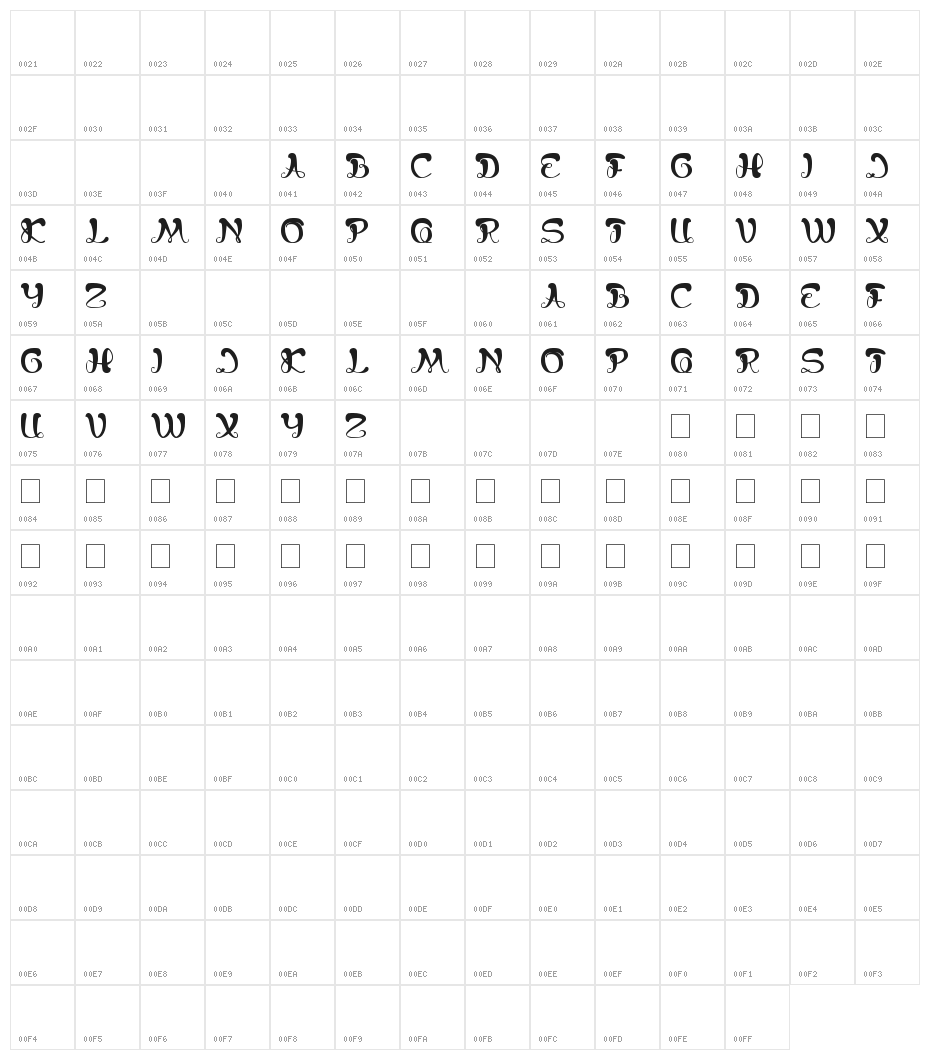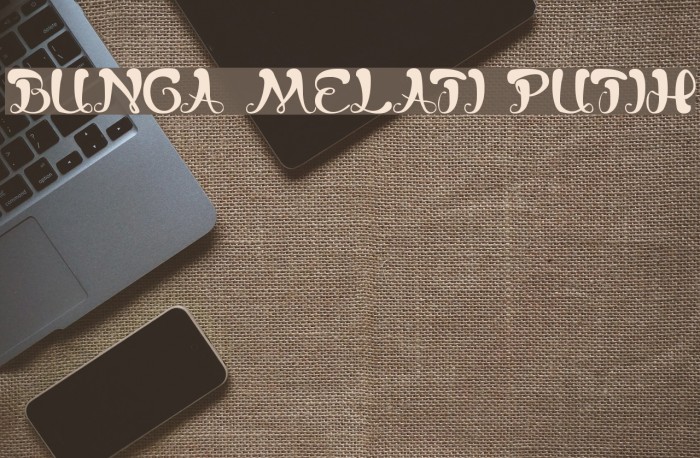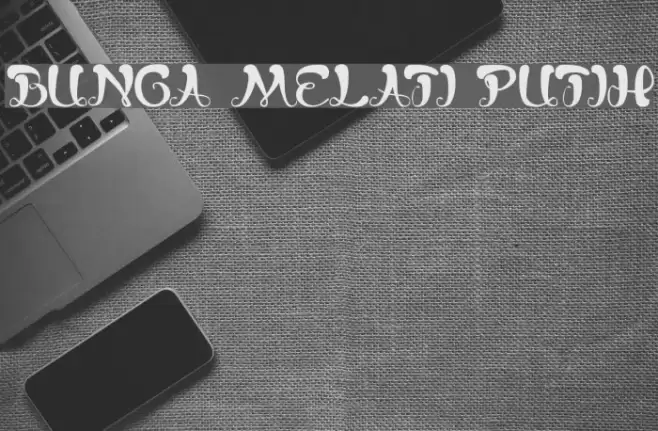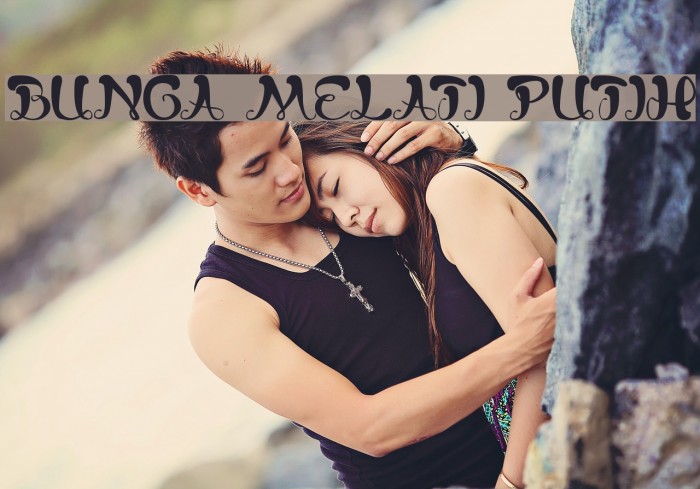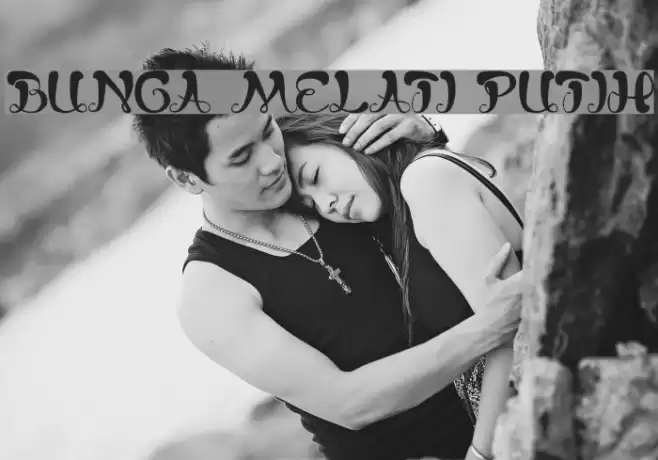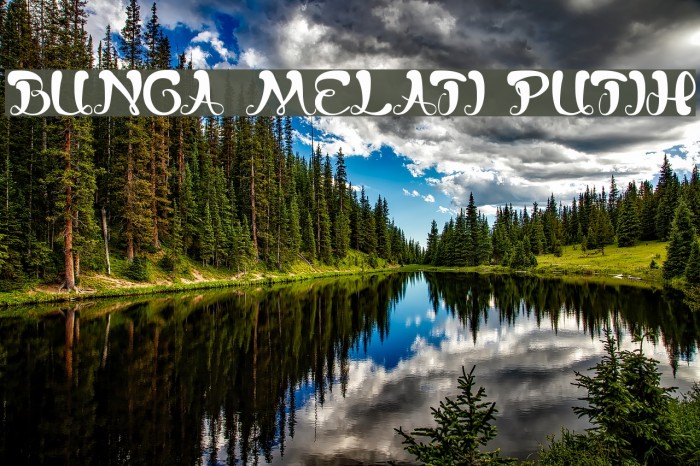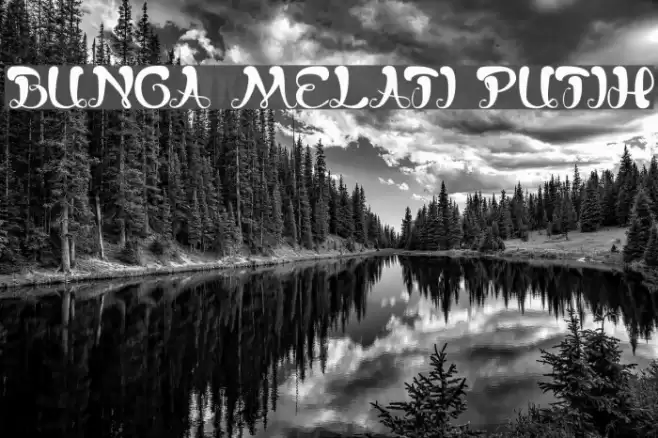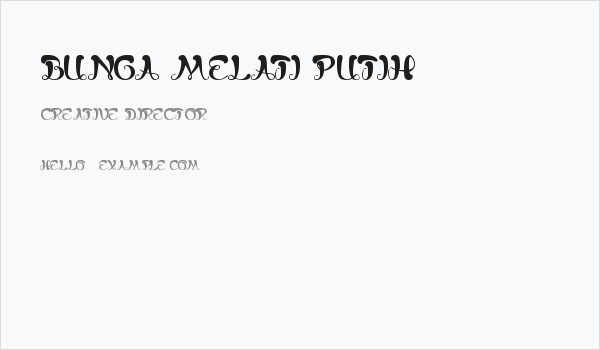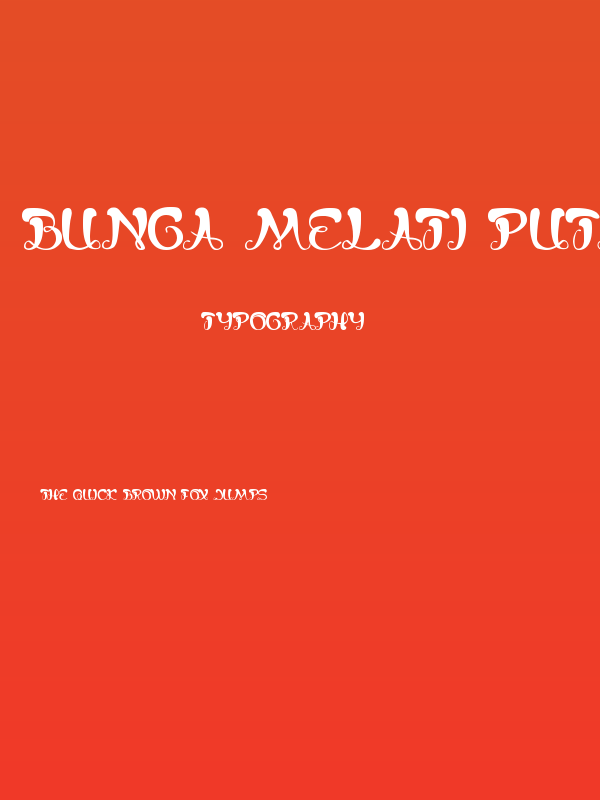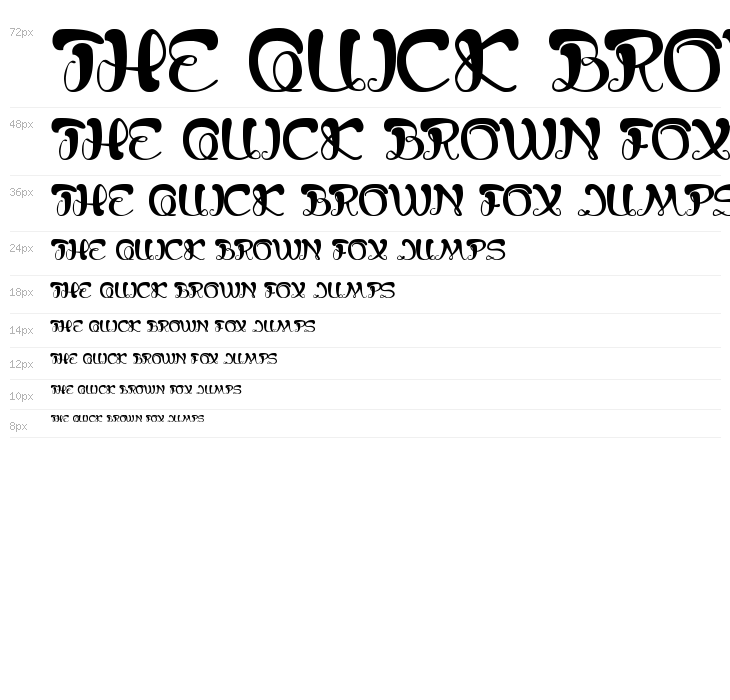
bunga melati putih Font
bunga melati putih Description
This font features an elegant and decorative style, characterized by its ornate swirls and flourishes that extend from the main strokes of each letter. The uppercase letters are particularly elaborate, with intricate loops and curves that give a sense of movement and sophistication. The overall appearance is bold and eye-catching, making it suitable for designs that require a touch of elegance and flair. The font maintains a consistent weight throughout, with medium contrast between thick and thin strokes, adding to its decorative appeal. The spacing between characters is normal, allowing for readability while still showcasing the intricate details of each letter.